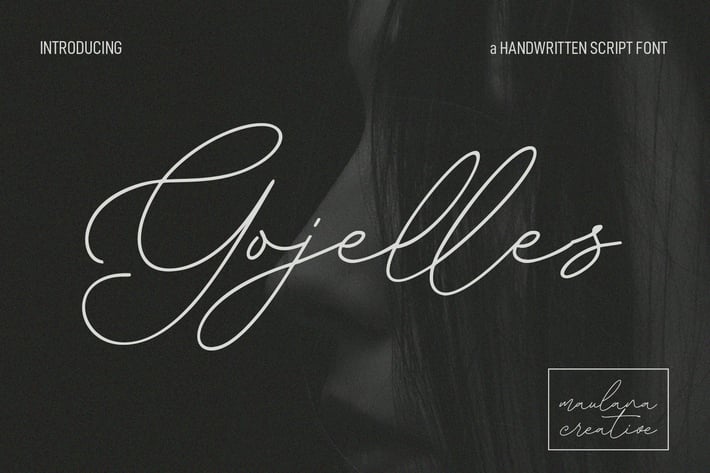
Gojelles Signature Script Font
Gojelles is signature script font. With light consist mono-line stroke, fun character with a bit of ligatures and alternates. To give you an extra creative work. Gojelles font support multilingual more than 100+ language. This font is good for logo design, Social media, Movie Titles, Books Titles, a short text even a long text letter and good for your secondary text font with sans or serif. Make a stunning work with Gojelles font.